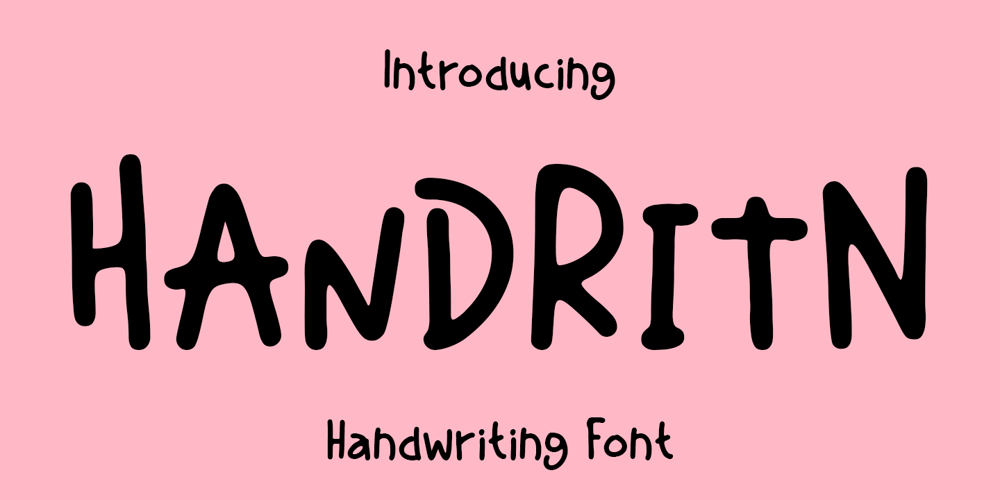
WS Handritn Font Family was designed by Miftahul Habib and published by Wasabib Type Foundry. WS Handritn contains 1 styles and family package options. WS Handritn is a handwritten font that stands out for its unique character and expressive quality. With its lowercase and uppercase letterforms, as well as full uppercase alternates, this font offers a diverse set of creative options, enabling designers to infuse their designs with a personalized and human touch.